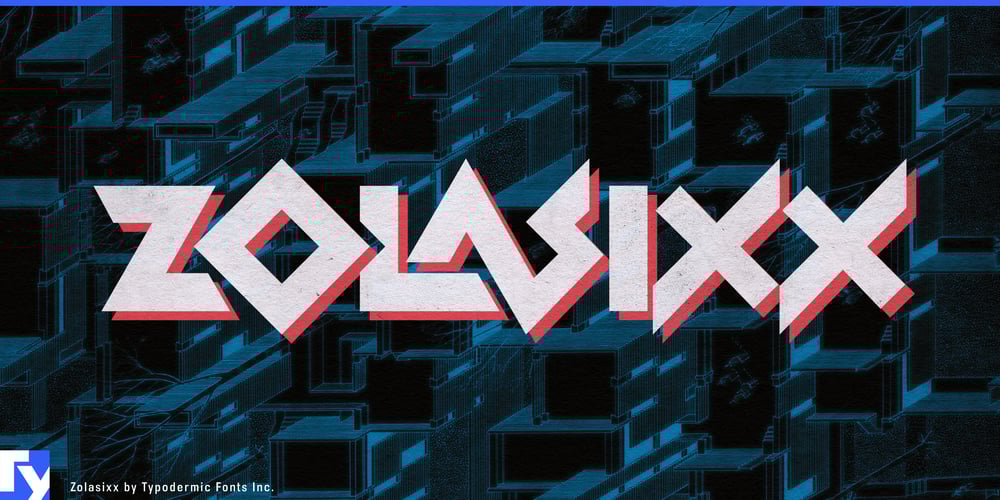
Zolasixx Font Family was designed by Ray Larabie and published by Typodermic. Zolasixx contains 1 styles and family package options. Attention, designers and digital warriors! Prepare to jack into the matrix of Zolasixx, the typeface that’s more electrifying than a fully-charged power-up and sharper than a laser-guided missile. This is a warp zone to the golden age of arcade cabinets and neon-soaked cyberpunk dreamscapes.Zolasixx’s angular letterforms aren’t just inspired by the legendary Zaxxon logo—they’re weaponized glyphs ready to annihilate boring designs with extreme prejudice. Each character is a polygon-perfect homage to the days when graphics were measured in bits and style was quantified by how many quarters you could pump into a machine. But hold onto your joysticks, because Zolasixx’s got an ace up its pixelated sleeve. With interlocking letter combinations that can be swapped faster than a speedrunner’s button mashes, this typeface offers more customization options than a maxed-out RPG character sheet. It’s like having a typography cheat code that lets you rewrite the rules of design engagement on the fly.Don’t mistake Zolasixx for some run-of-the-mill retro knockoff, though. This font’s got range smoother than a perfectly executed combo move. Its high-tech angularity delivers an aggressive technological voice that’ll make your message the final boss of any design showdown. Yet, there’s a playful undercurrent humming through its circuits, giving you the versatility to switch between “serious business” and “game on!” faster than you can say “insert coin.” And just like the most addictive arcade games, Zolasixx’s appeal is universal. With support for a massive array of Latin-based European writing systems, your typographic high score will be recognized from the neon-lit streets of Gothenburg to the tech startups of Silicon Valley.So whether you’re designing the next viral mobile game, branding a cutting-edge tech company, or just want to give your Instagram stories some retro-futuristic flair, Zolasixx is your power-up to the next level of design excellence.